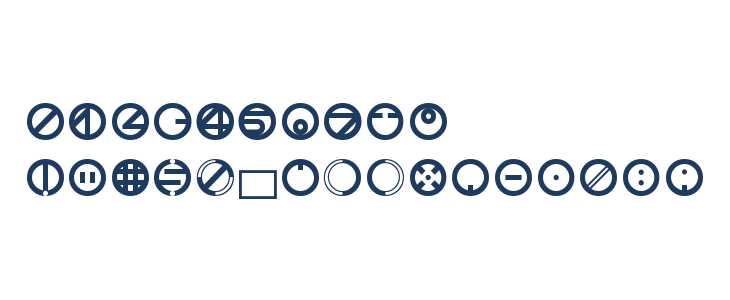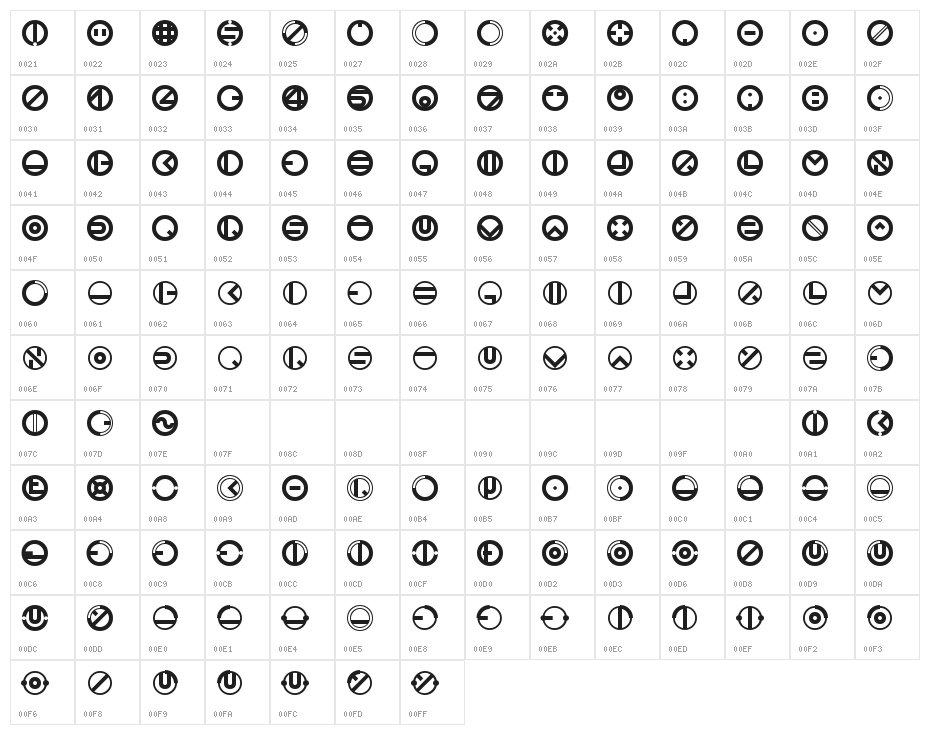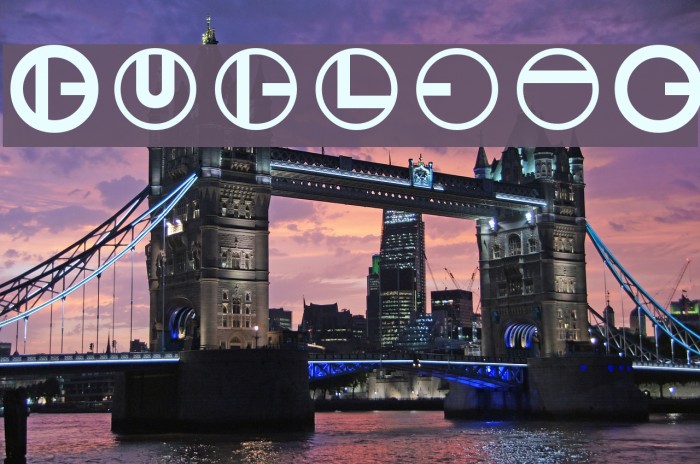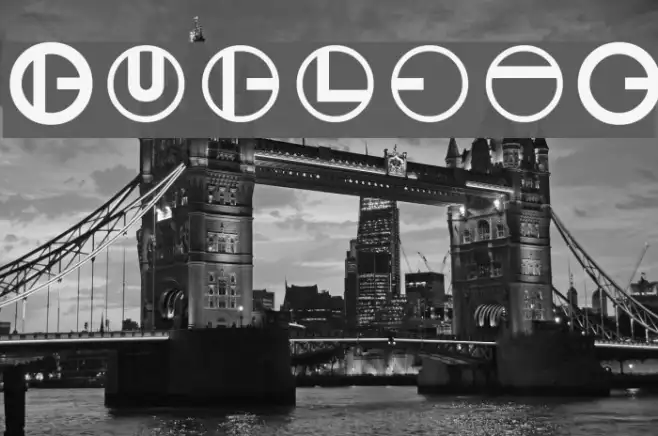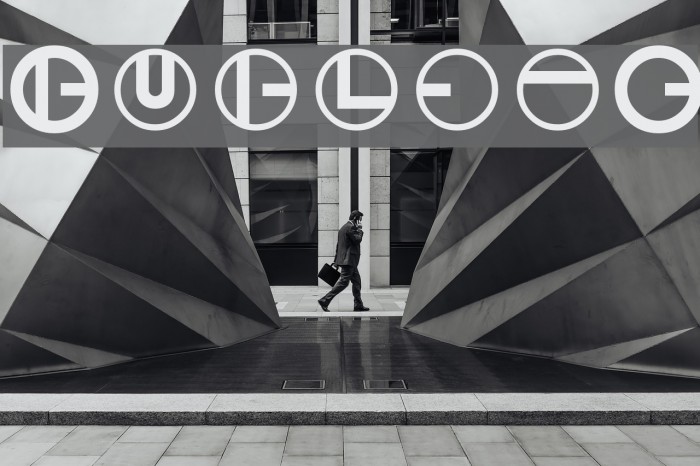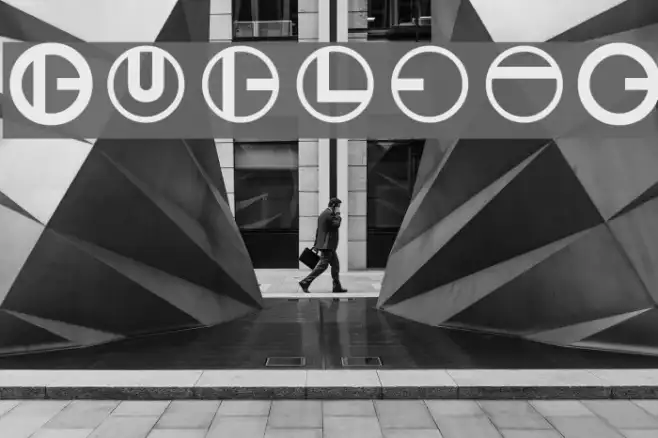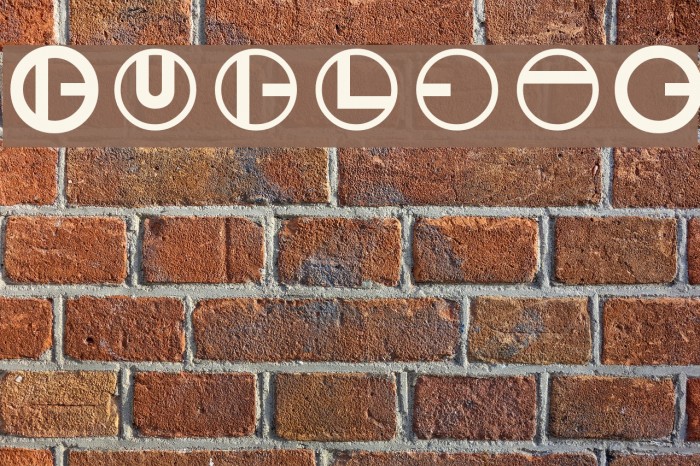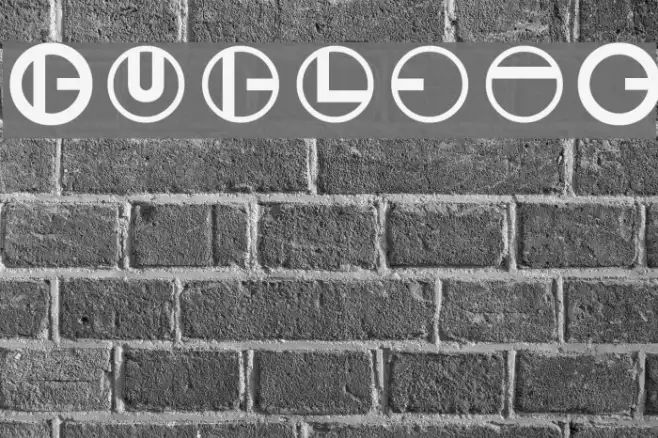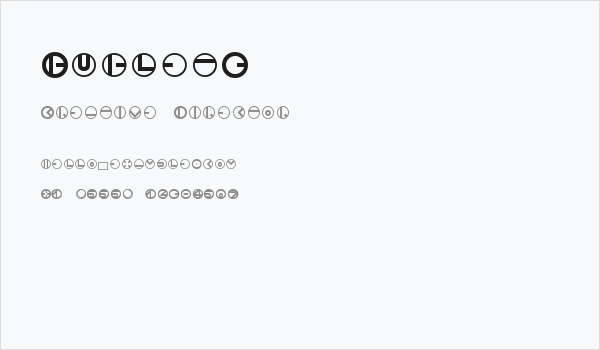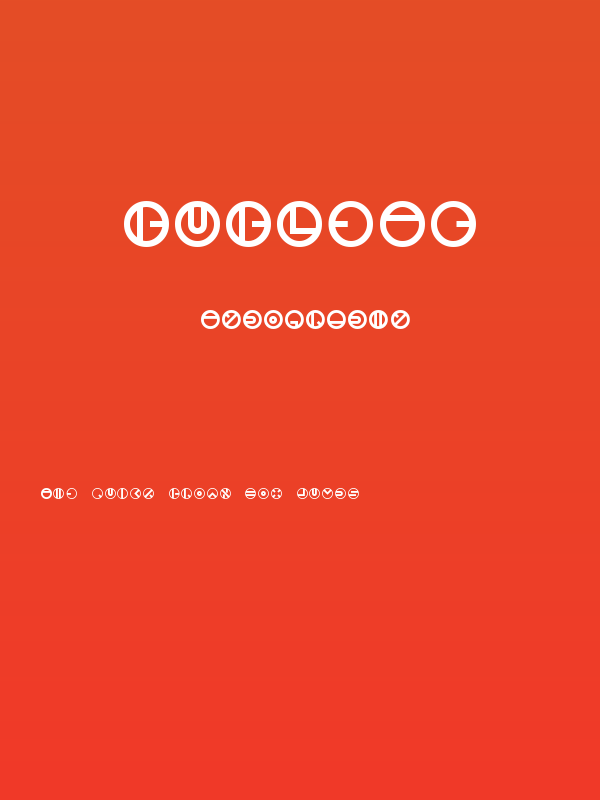
Bublet3 Font
Bublet3 Description
This font features a unique and modern design, with each character enclosed within a circle. The letters and numbers are stylized with geometric shapes and lines, creating a futuristic and abstract appearance. The bold strokes and circular enclosures give it a distinct and eye-catching look, making it suitable for creative and artistic projects. The characters are evenly spaced within their circular boundaries, providing a consistent and harmonious visual flow. This font is ideal for projects that require a modern and innovative touch.
| Use Case | Logos, Posters, Digital Artwork |
| Proposed Projects | Ideal for logos, branding, posters, and digital artwork that require a modern and creative flair. |